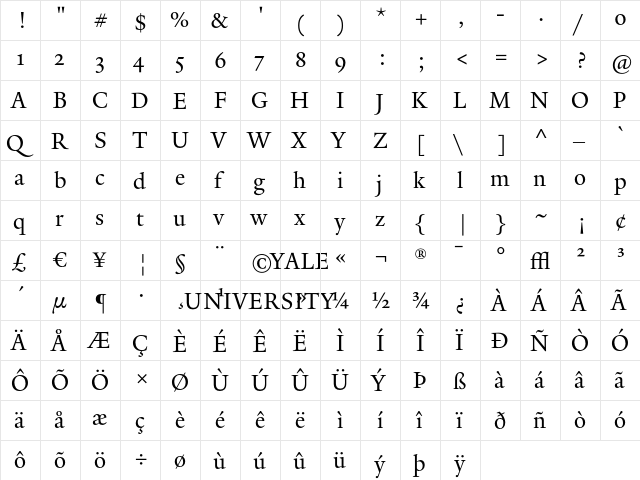
YaleDesign Roman
Design Context for YaleDesign Typeface
YaleDesign offers clean, dependable letterforms without strong stylistic allegiance, making it a practical choice for designers who need flexibility.